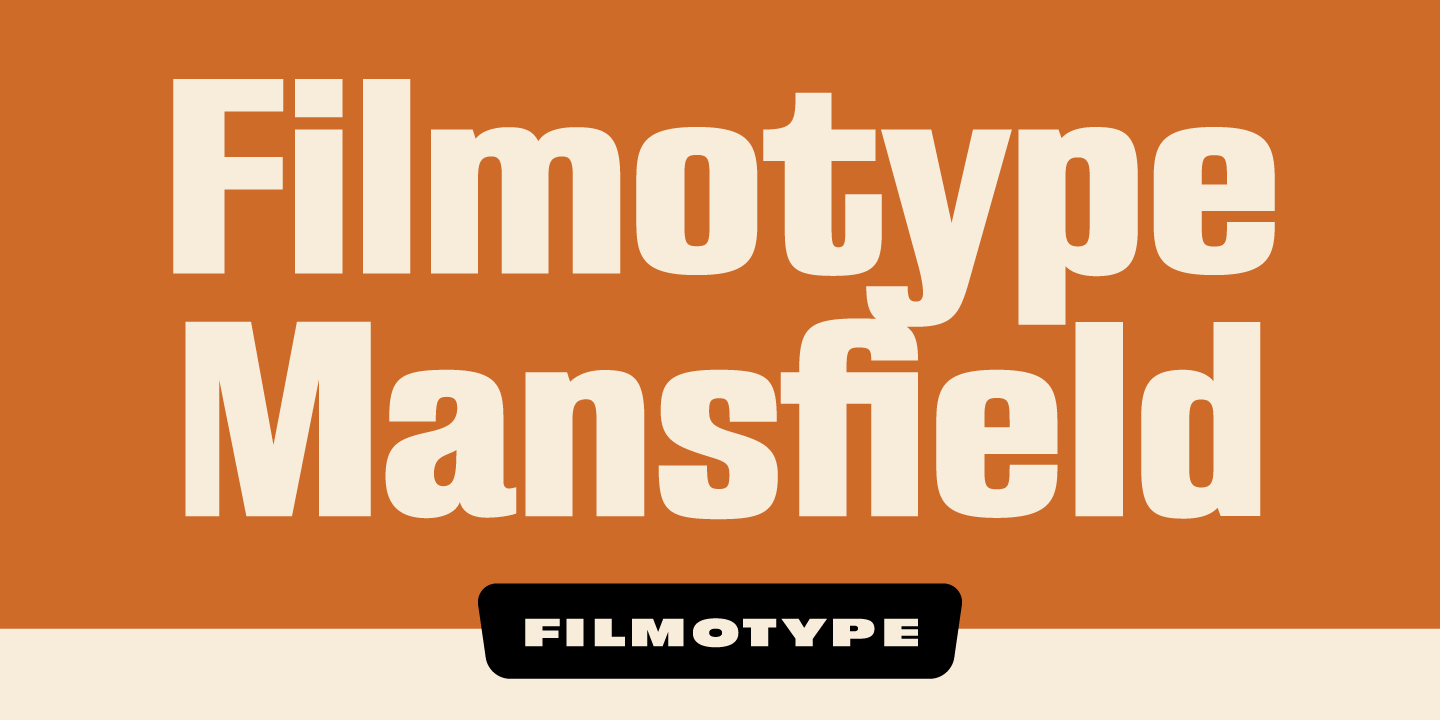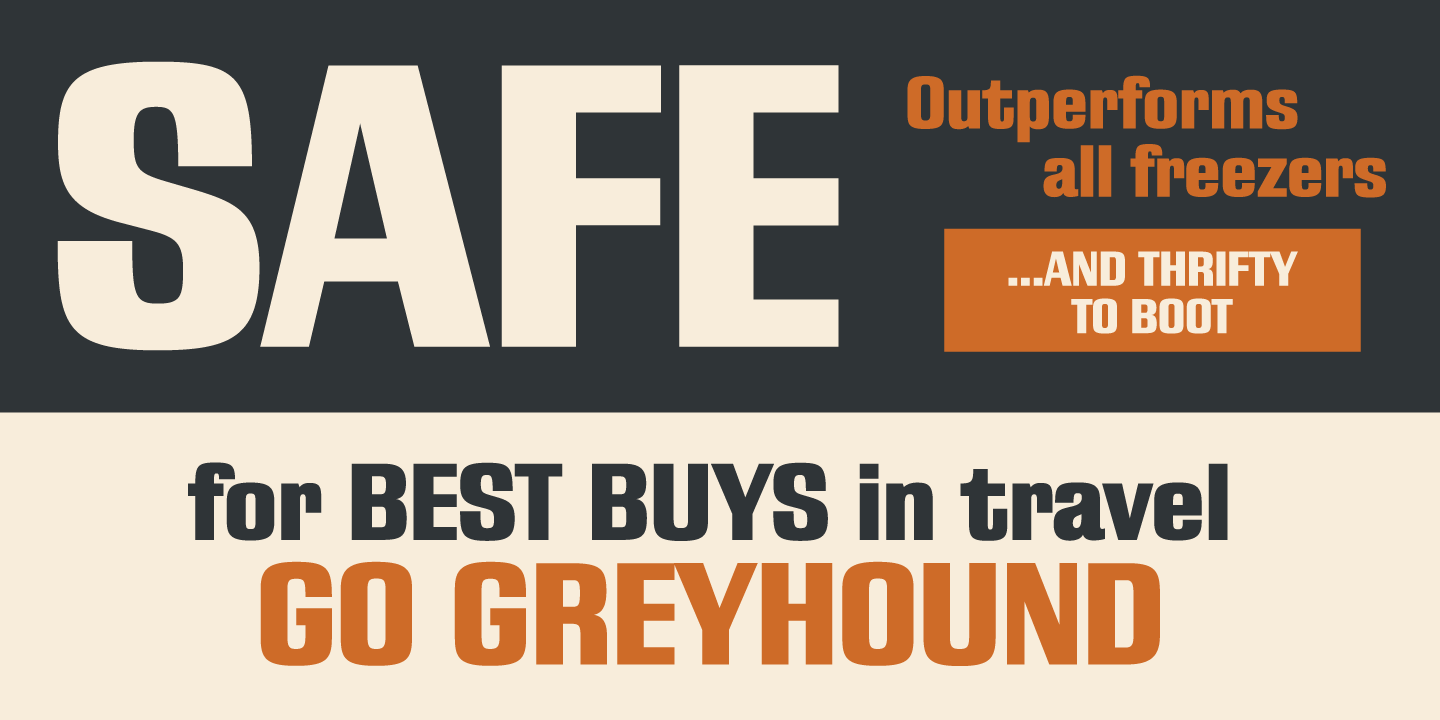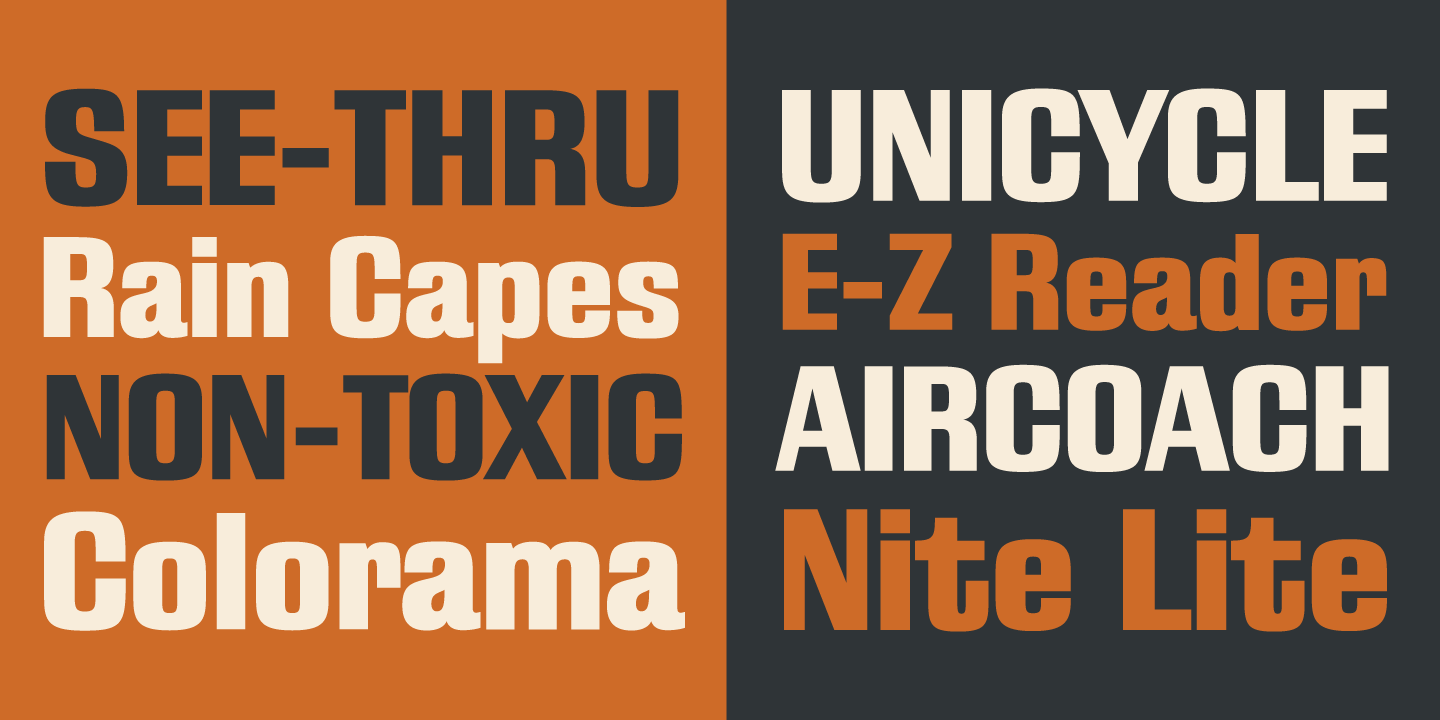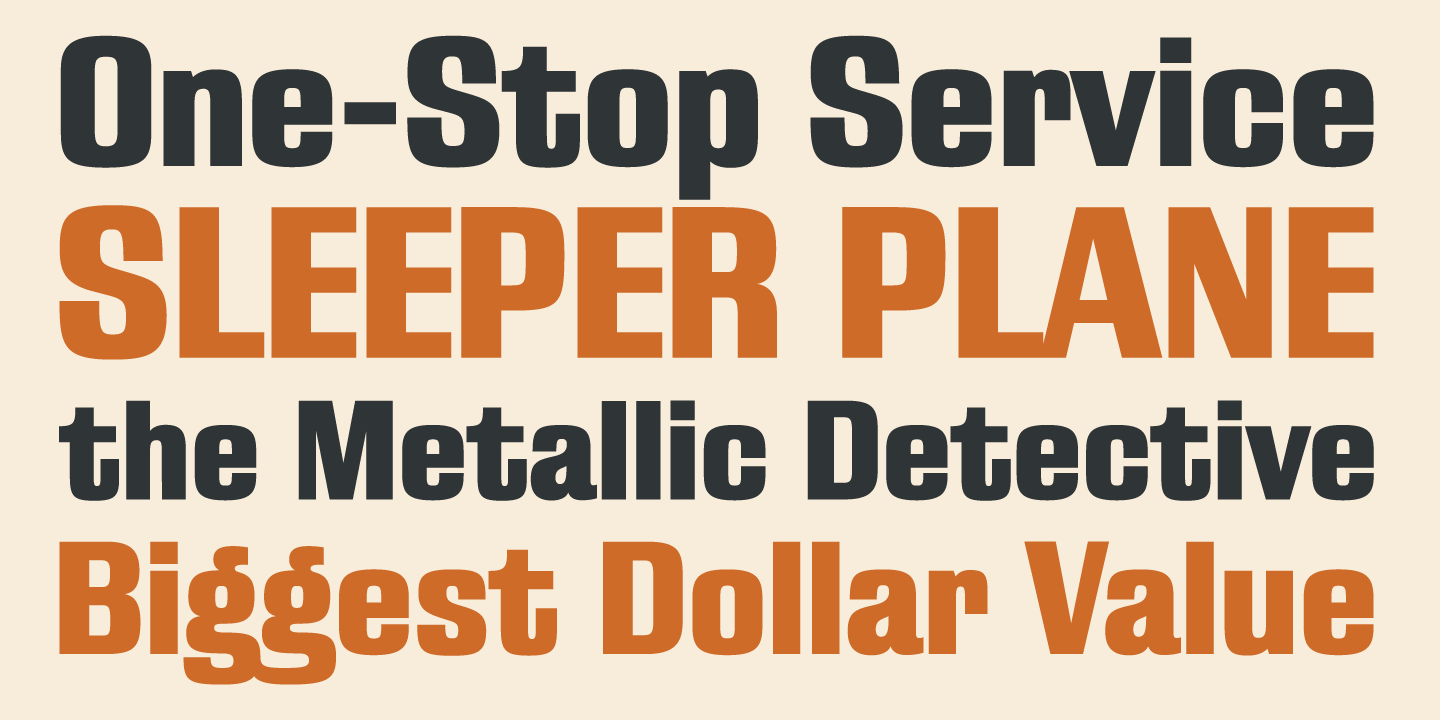
Filmotype Mansfield
Originally released in the late 1960s, Filmotype expanded it's Grotesque typeface category with the introduction of its Miner, Marlette and Manchester typefaces offering its own original take on this modern sans serif style. Type designer Rian Hughes refined and further expanded these styles creating the first expansion the original library since the mid-1970s with Mansfield and Meredith.
Each weight of the Filmotype Manchester family was developed from the original font filmstrips and includes a full international character compliment, automatic fractionals, ordinals, and a host of alternate characters in dynamic OpenType format.